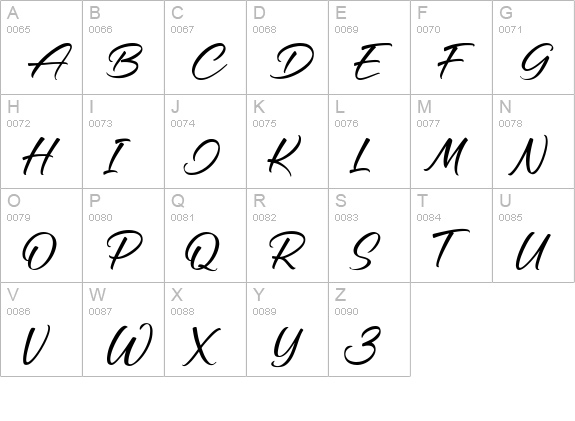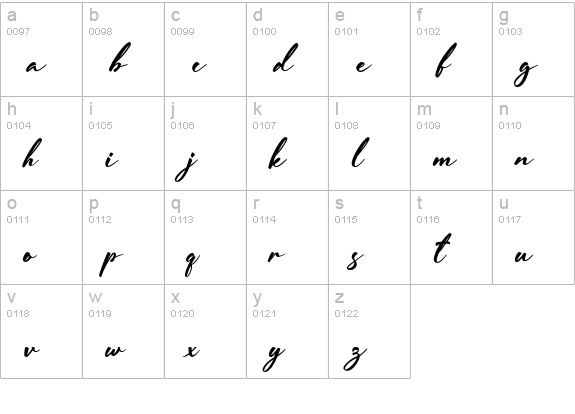
Jeasland Script Font Details
Jeasland Script is a free for personal use font in the Script > Handwritten category, designed by hanzel_space. It has been downloaded 43 times and is available for Windows, Mac and Linux.
Introducing Jeasland Script font, a stylish and versatile typeface that exudes elegance and sophistication. With its flowing and graceful letterforms, Jeasland Script is perfect for adding a touch of charm to your designs. Whether you're working on invitations, branding, or any other creative project, this font will elevate your work to the next level.